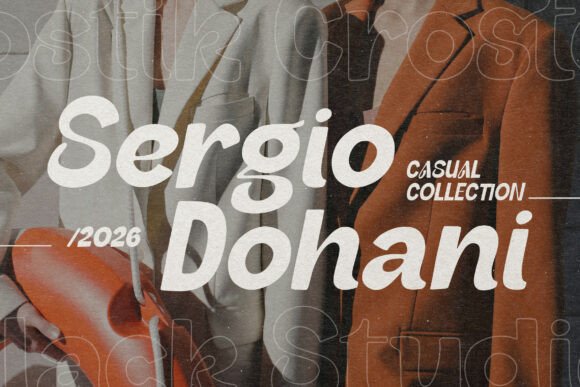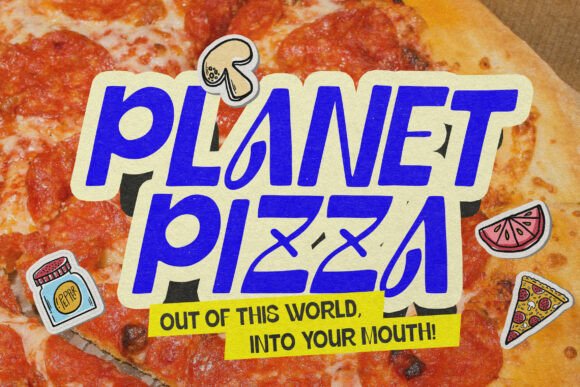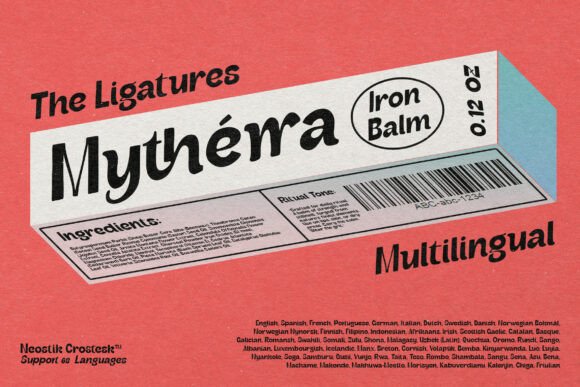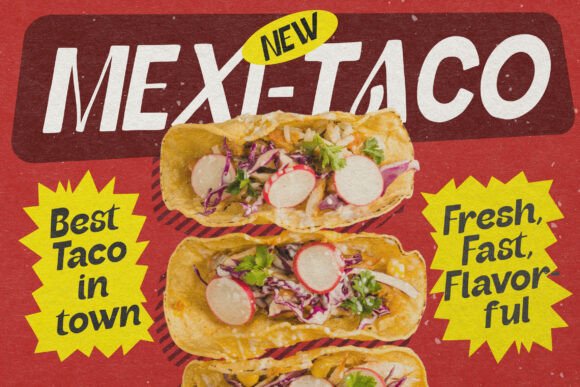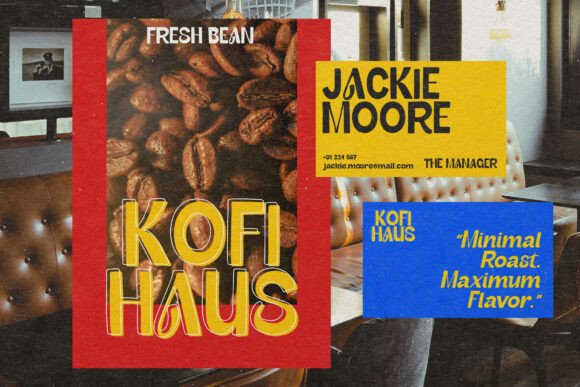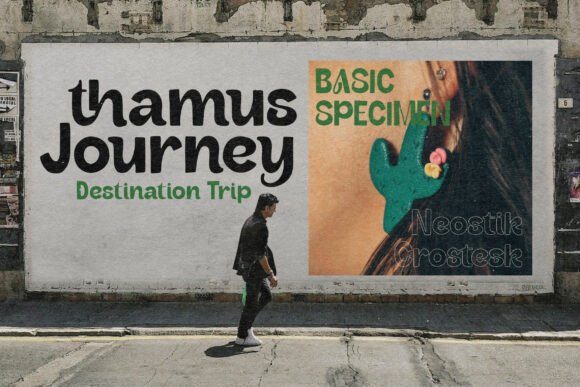
Introduction to Neostick Crostesk Font Font
Fonts play a crucial role in design, and the Neostick Crostesk Font font is a typeface that brings both character and versatility to any project. Whether you’re working on a branding project, a website, or a print design, the Neostick Crostesk Font font offers a unique style that can elevate your work.
Neostik Crostesk is a modern, hand-drawn font family.
It comes in three unique styles — Regular, Italic, and Outline — offering versatility for creative design projects The font combines a bold, rounded sans-serif look with a playful and artistic touch, making it ideal for posters, headlines, branding, and editorial layouts.
Key Features of Neostick Crostesk Font Font
Why Choose Neostick Crostesk Font Font?
The Neostick Crostesk Font font is more than just a typeface – it’s a design tool that helps you communicate your message with style and clarity. Its unique character set and versatile design make it suitable for a wide range of applications, from elegant invitations to bold headlines.
With its carefully crafted letterforms and balanced proportions, the Neostick Crostesk Font font ensures readability and visual appeal across all mediums.
What makes Neostick Crostesk Font font special?
The Neostick Crostesk Font font stands out with its unique design, exceptional readability, and versatility across various design applications.